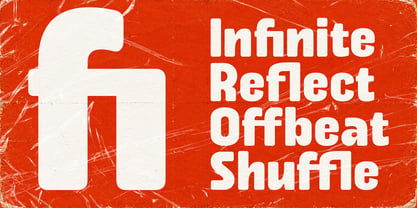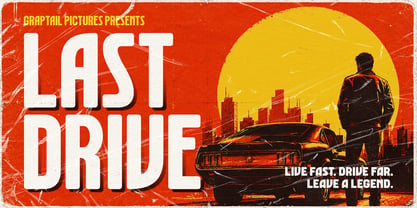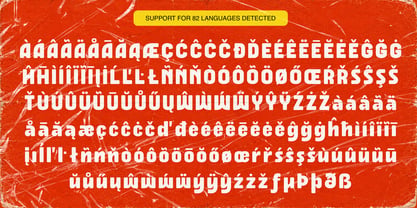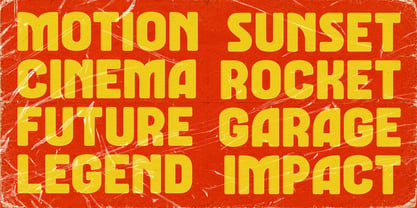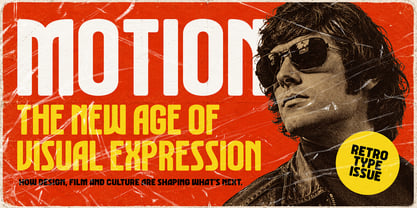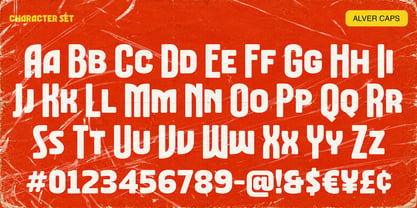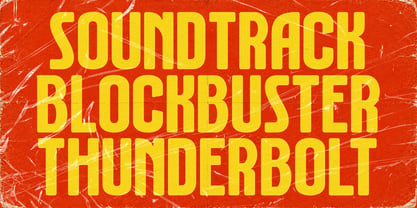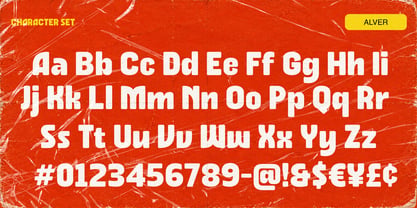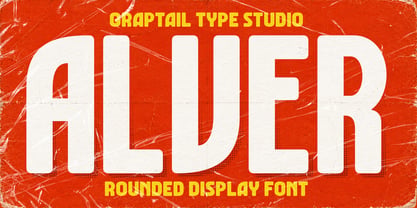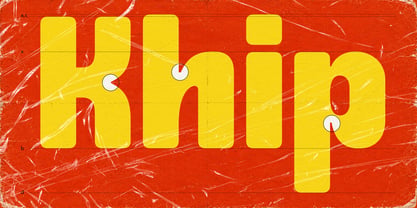
Alver
by Graptail
The Alver Font Family was designed by Teuku Deky Firnanda and published by Graptail. Alver contains 2 styles and family package options. More about this family
ALDER is a bold rounded display font designed to make a strong visual impact. With its heavy weight, smooth rounded corners, compact proportions, and distinctive letterforms, ALDER delivers a powerful yet approachable personality.
Inspired by retro sports graphics, vintage signage, athletic branding, and bold editorial typography, this typeface brings a nostalgic character with a modern edge. Its sturdy construction makes it highly visible and versatile, especially for headlines, logos, posters, apparel, packaging, badges, and branding projects.
ALDER is built for designers who want typography that feels confident, energetic, playful, and unapologetically bold. Whether used large as a statement headline or integrated into a branding system, its rounded forms create a memorable and dynamic presence.